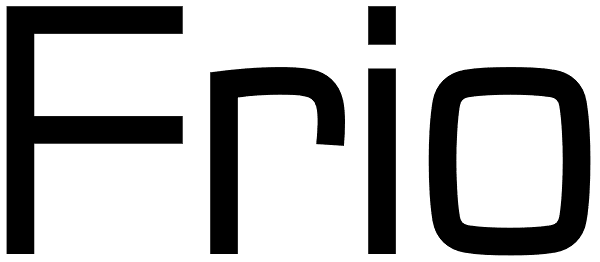
Frio
Frio is a geometric monoline sans-serif typeface consisting of 15 styles: 5 weights and 3 widths plus italics. Clean, neutral and technical, Frio was inspired by the form of super ellipse and Eurostile by Aldo Novarese. The font contains stylistic...